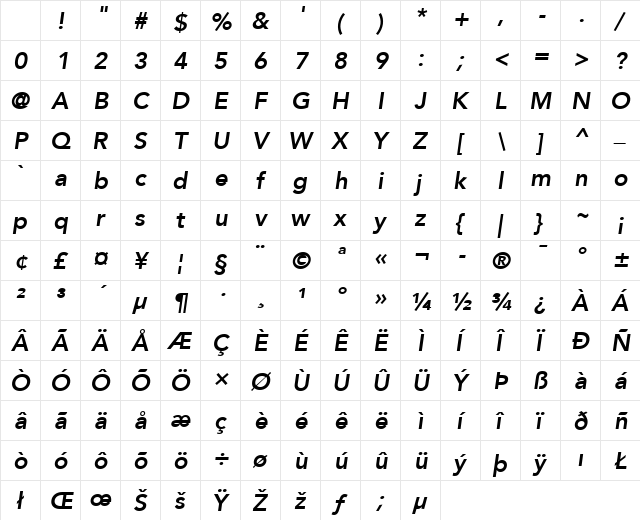
Complete Avenir LT 55 Roman Bold Italic glyph index. Displaying only characters natively supported by Avenir LT 55 Roman Bold Italic font.
Avenir LT 55 Roman is a composed and adaptable typeface that performs quietly and consistently across a wide range of design contexts. The slanted form adds forward momentum and visual energy. Its bold stroke weight gives it real presence on the page.
Pro Tip: Use Avenir LT 55 Roman for emphasis, pull quotes, and subheadings where its slanted energy can add rhythm to the layout.